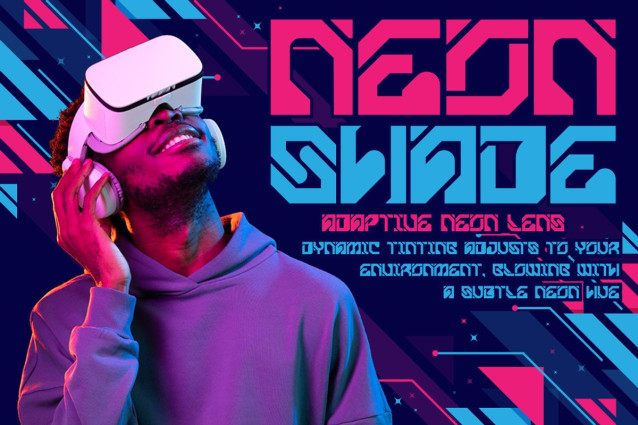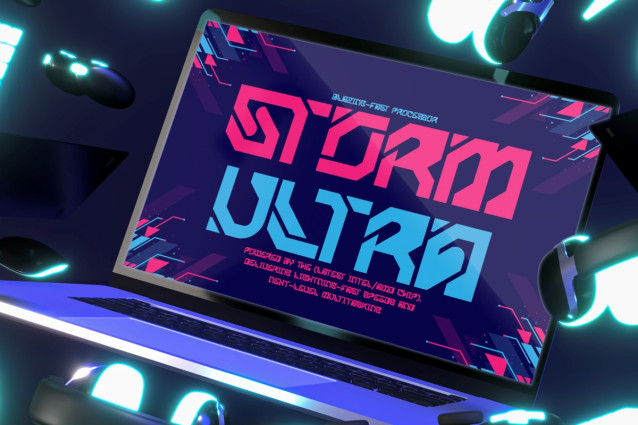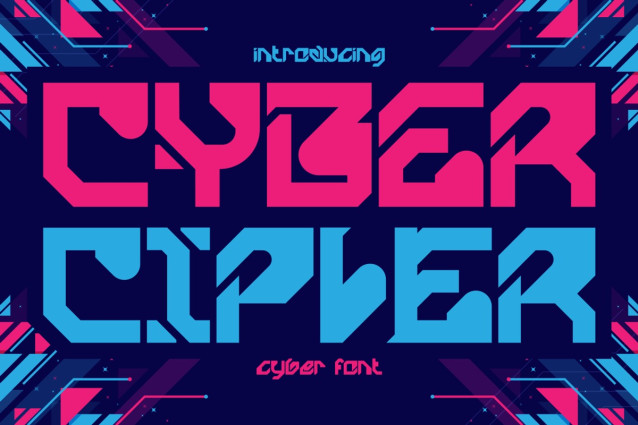
Cyber Cipher Font
Cyber Cipher – Cyber Font, a cutting-edge typeface designed for the futuristic, cyberpunk, and tech-inspired aesthetic. This bold, geometric display font features sharp, angular edges and dynamic cuts, creating a high-tech, digital-era feel. The font’s structure mimics the blocky, robotic, and digitalized forms commonly found in cyber-themed media, making it a perfect choice for sci-fi branding, gaming, esports, and technology-focused projects. The neon pink and electric blue color scheme in the preview image reinforces its digital and cyberpunk identity, giving off a sense of speed, energy, and innovation. Cyber Cipher is a go-to option for projects that require a futuristic and mechanical aesthetic with a strong, industrial edge.
Whether you are designing for tech companies, cyber events, sci-fi movies, futuristic posters, or gaming interfaces, Cyber Cipher delivers a unique, modern, and visually striking impact. The dark, grid-like background with neon accents enhances the font’s futuristic, cyberspace atmosphere, making it ideal for branding, UI/UX design, digital marketing, and more. Its strong letterforms and bold design elements create an intense and commanding presence, ensuring that your text stands out in any visual composition. Elevate your project with Cyber Cipher, the ultimate font for cyberpunk and sci-fi enthusiasts.